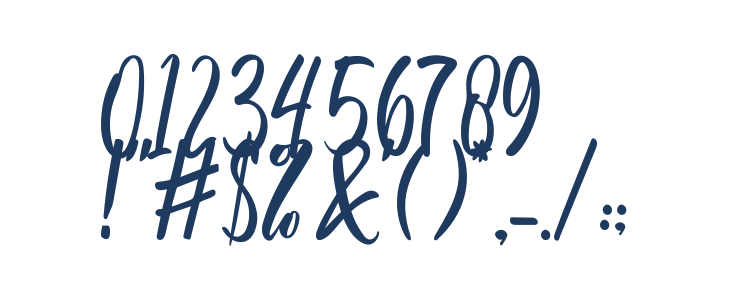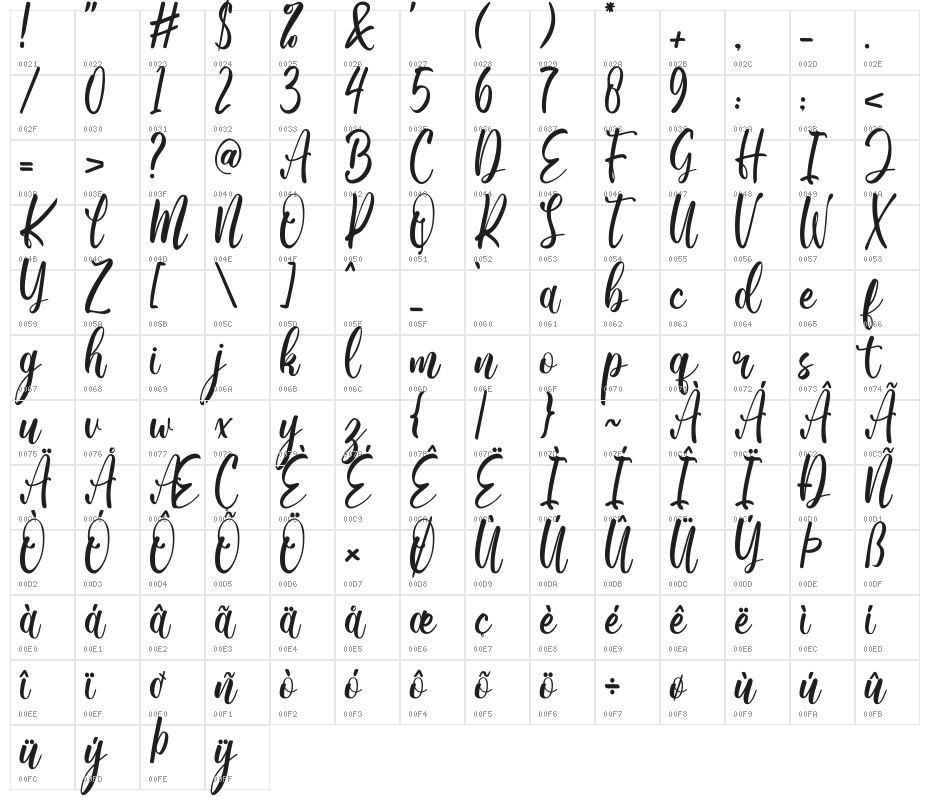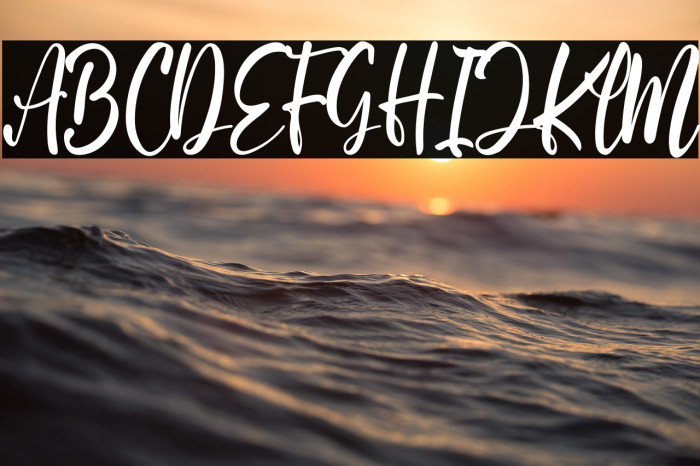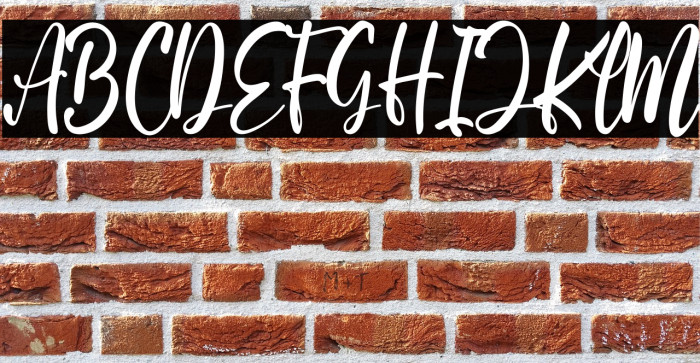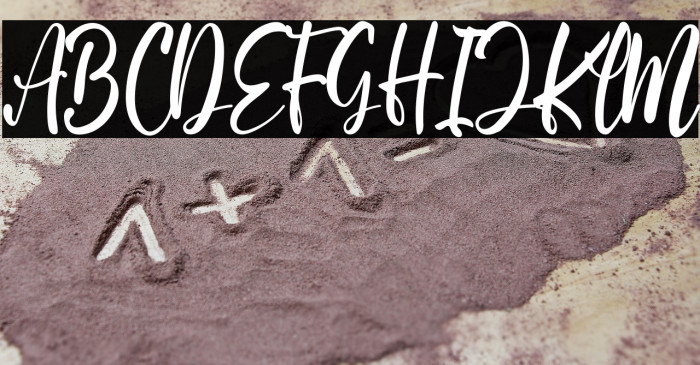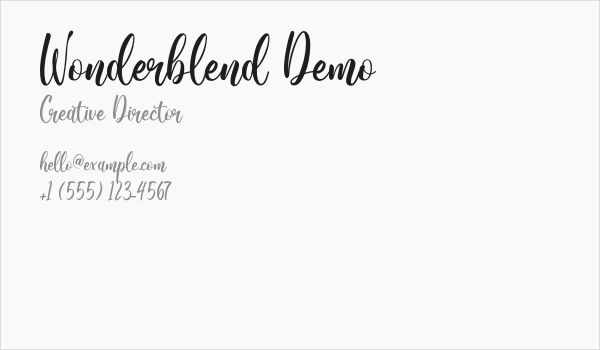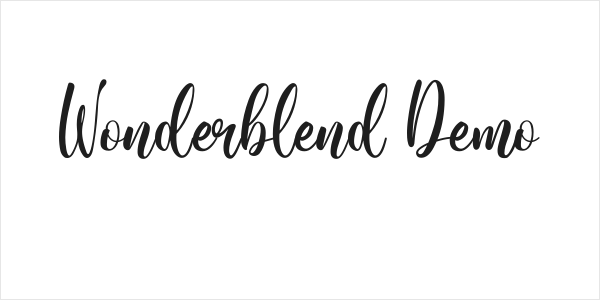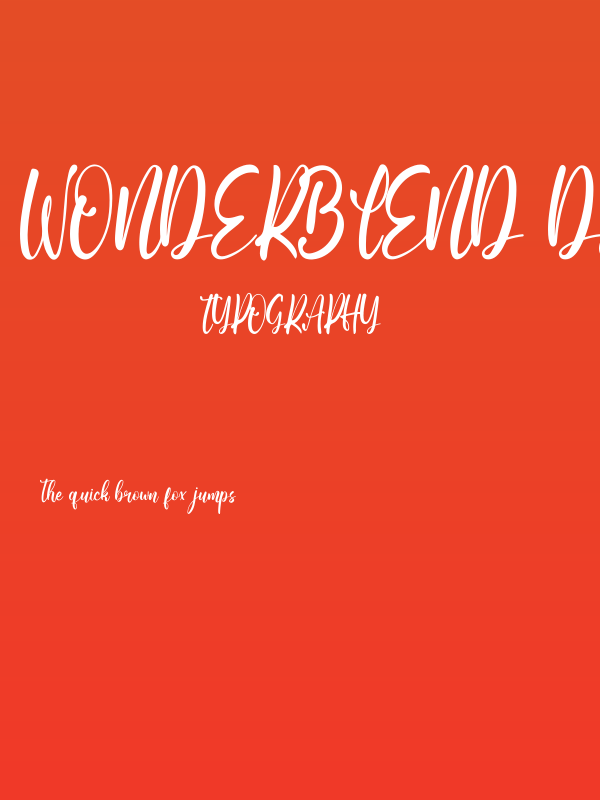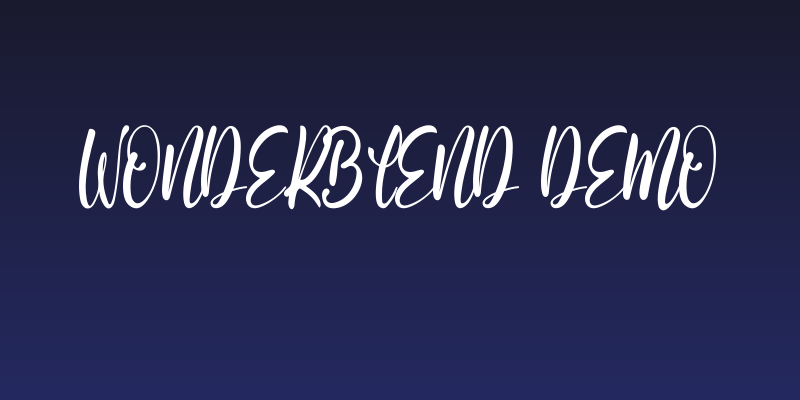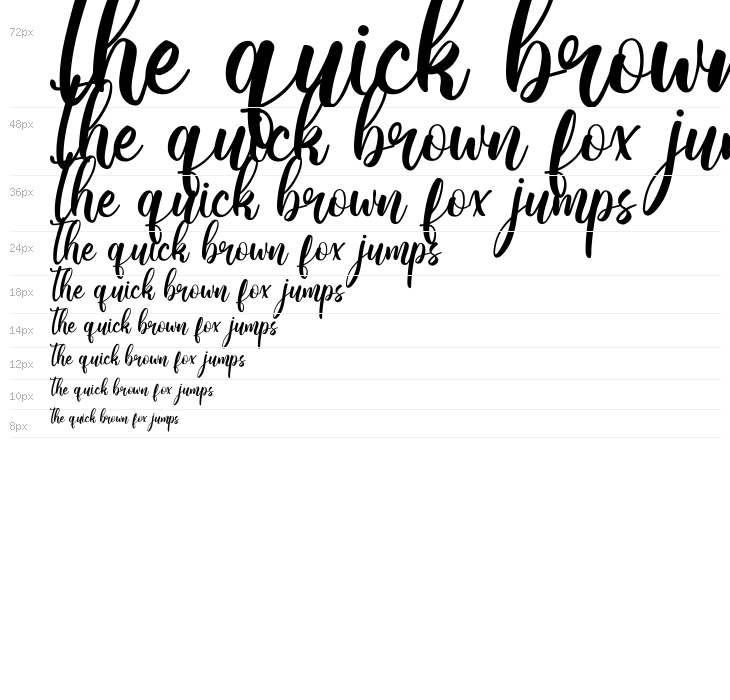
Wonderblend Demo Font
Wonderblend Demo Description
This font features a dynamic and fluid script style, characterized by its bold and expressive strokes. The letters are interconnected with a smooth flow, giving it an elegant and artistic appearance. The uppercase letters are tall and slightly slanted, while the lowercase letters maintain a consistent rhythm, enhancing readability. The numerals and special characters are crafted with the same attention to detail, ensuring a cohesive look across all glyphs. This font exudes a sense of creativity and sophistication, making it suitable for a variety of design applications.